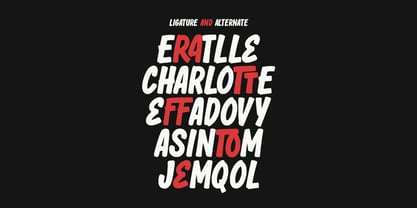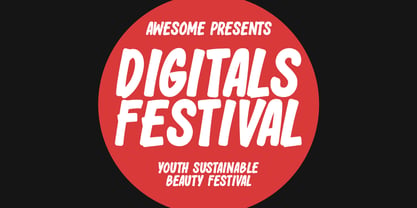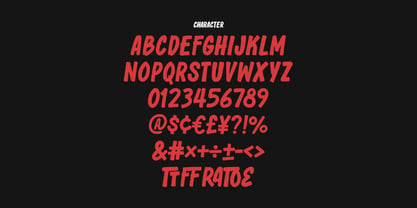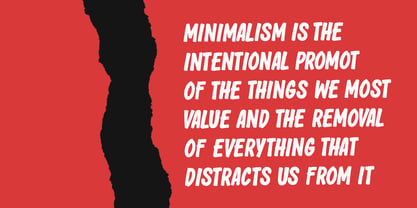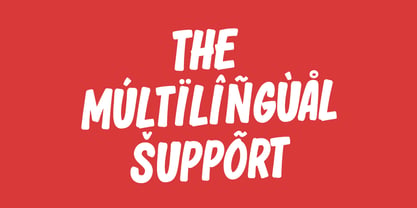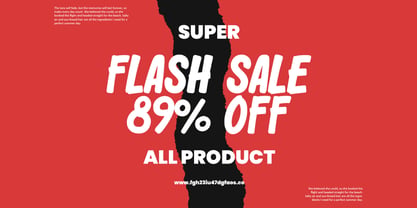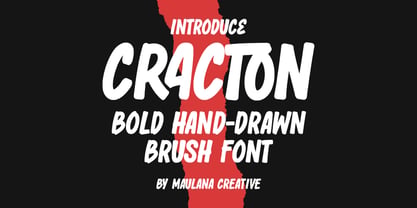
MC Cracton
by Maulana Creative
The MC Cracton Font Family was designed by Gilang Maulana and published by Maulana Creative. MC Cracton contains 1 styles. More about this family
Unleash the Boldness with Cracton! Cracton is an authentic, hand-drawn brush font designed to give your projects an energetic, raw, and impactful feel. With its chunky, expressive strokes and slightly imperfect lines, it captures the spontaneity of real brush lettering, making it perfect for designs that demand attention and a vibrant, rebellious attitude. Ideal for: - High Impact Marketing: Posters, flyers, banners, and sale promotions. - Merchandise & Apparel: T-shirts, hoodies, and brand logos. - Food & Beverage Branding: Logos and packaging for quirky cafes, food trucks, or craft. - Music & Events: Album covers, festival branding, and concert posters. - Quotes & Social Media Graphics: Adding a bold, awesome touch to inspirational quotes and viral content.
Designers: Gilang Maulana
Foundry: Maulana Creative